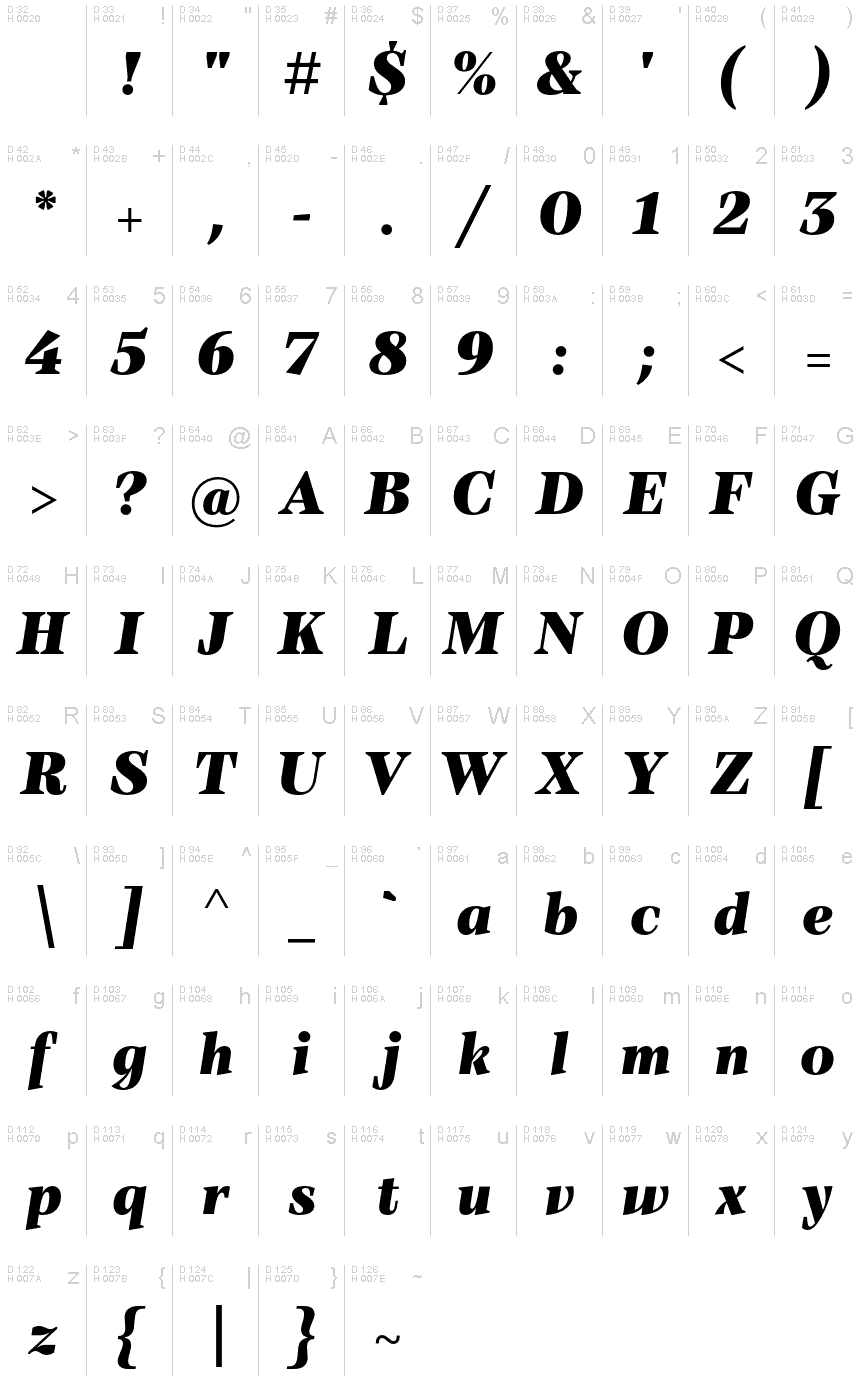
TT Barrels Trl Black Italic
TT Barrels Black Italic is a remarkable serif font from TypeType Foundry that boasts an extra-bold weight. With its elegant, slanted characters and sharp design, this font is ideal for projects that require a touch of sophistication and class. Whether you're creating a luxury brand logo, designing high-end product packaging, or crafting stylish editorial layouts, TT Barrels Black Italic will make your content stand out from the crowd. Its unique style and high contrast make it perfect for fashion magazines, jewelry catalogs, or even movie posters. This versatile font family also includes other weights and styles that can be used in a variety of design projects.